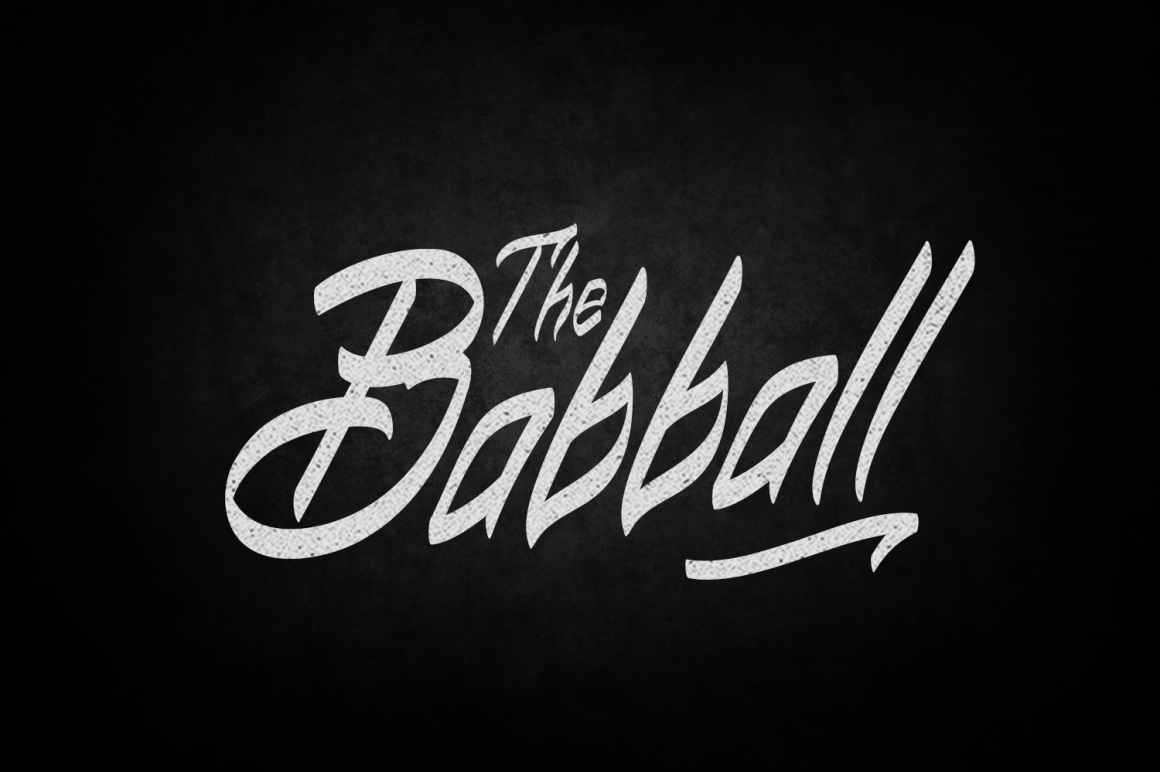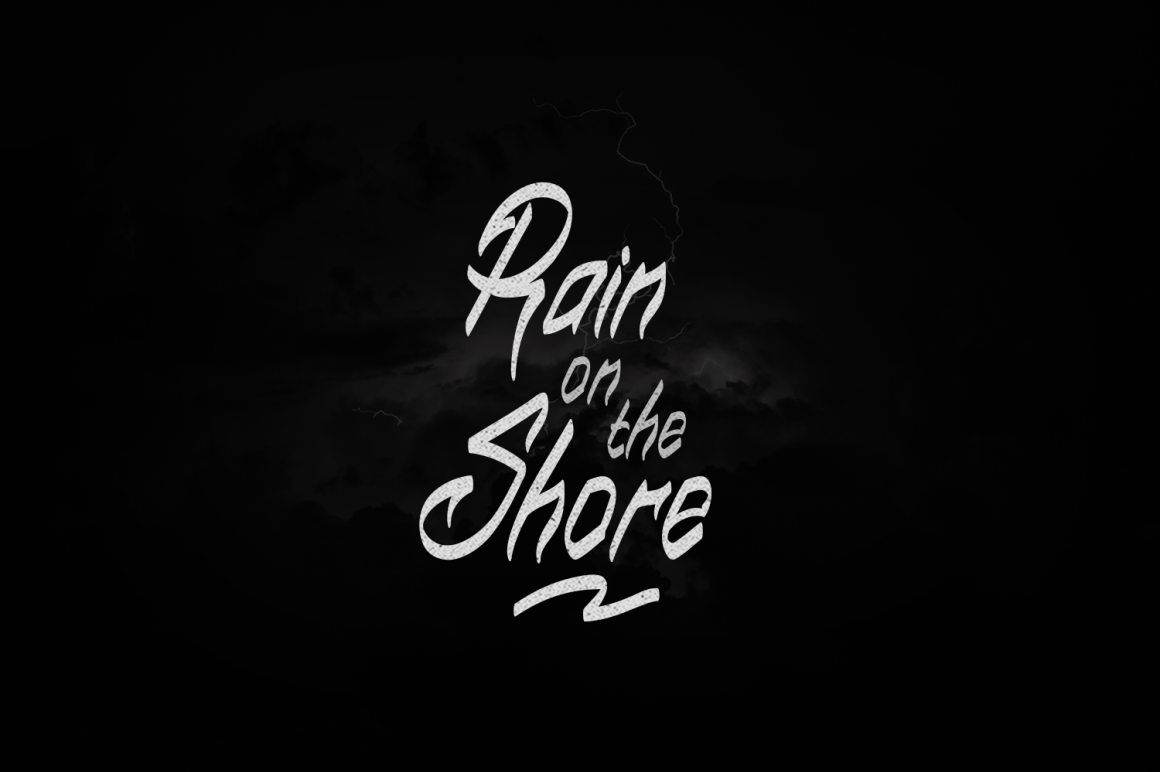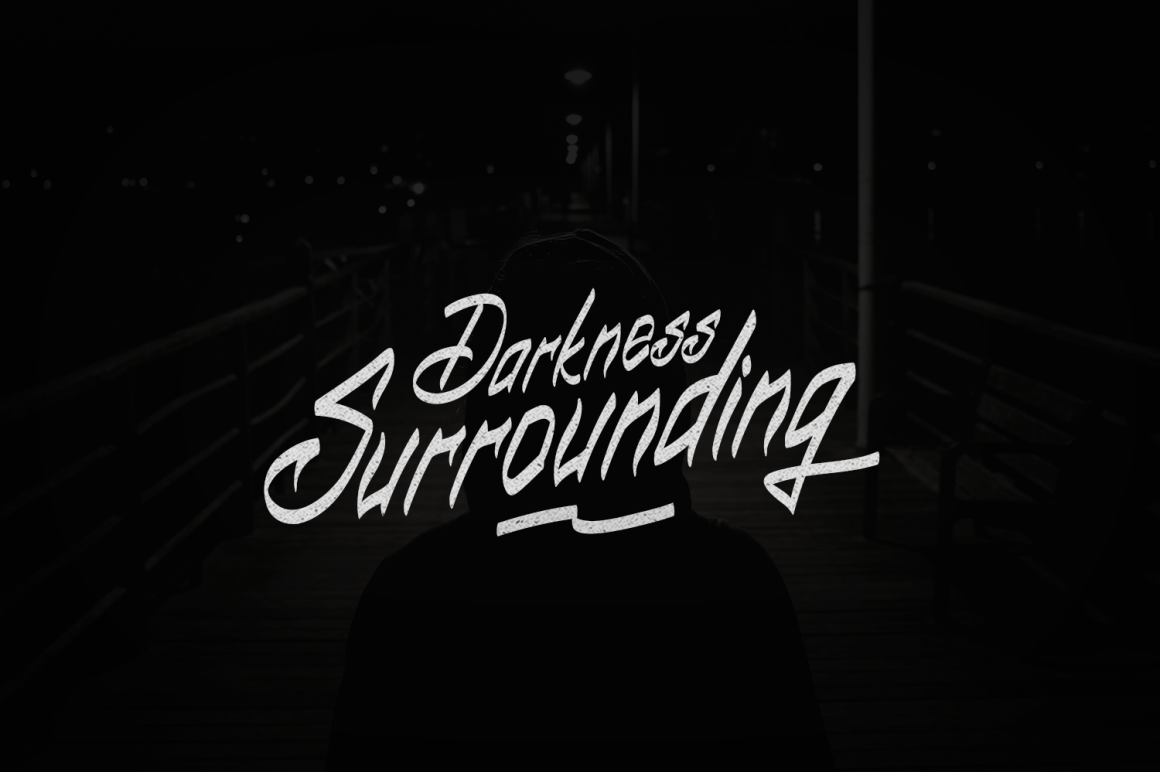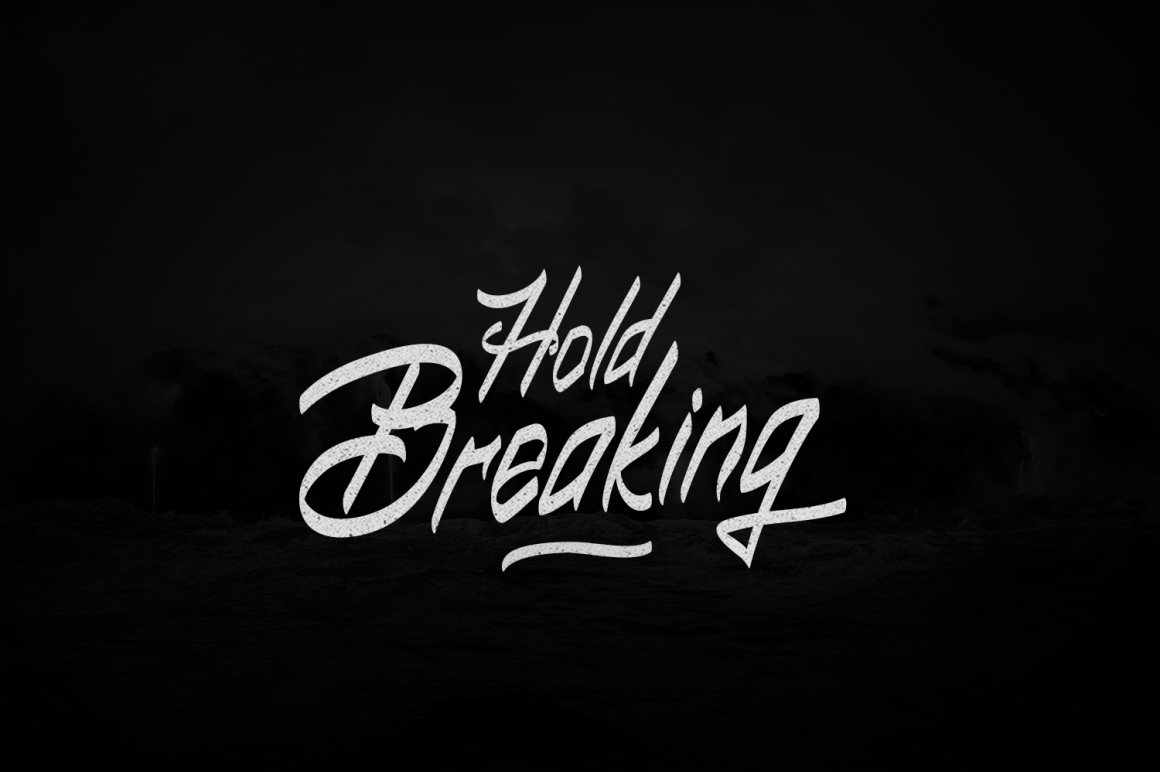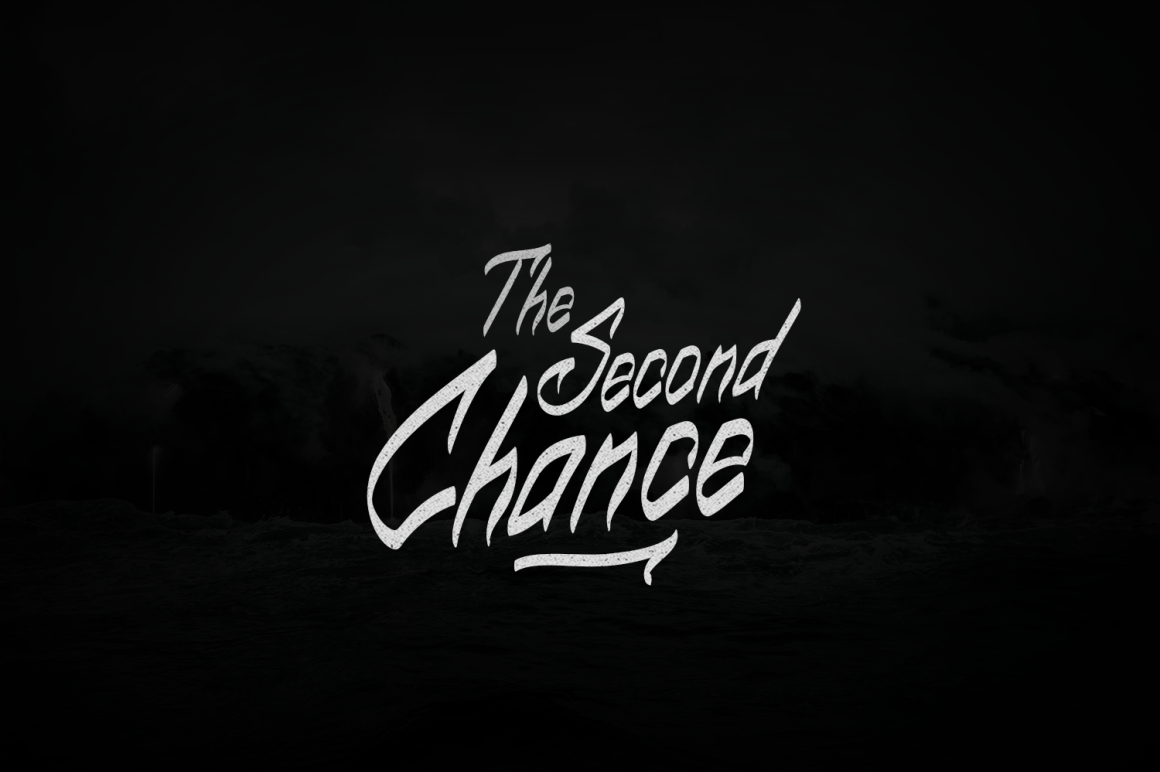
Babball Font
About Babball Font
Babball is a friendly and casual handwritten font, ideal for a wide range of headline, display, or body text uses. This font comes with some stylistic alternates so you can make the most out of your type-based designs.